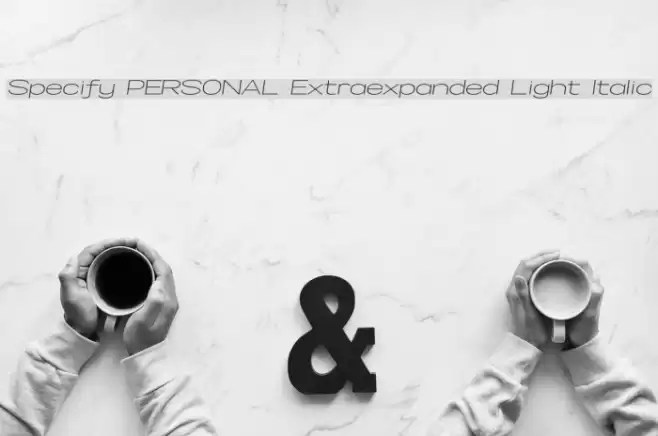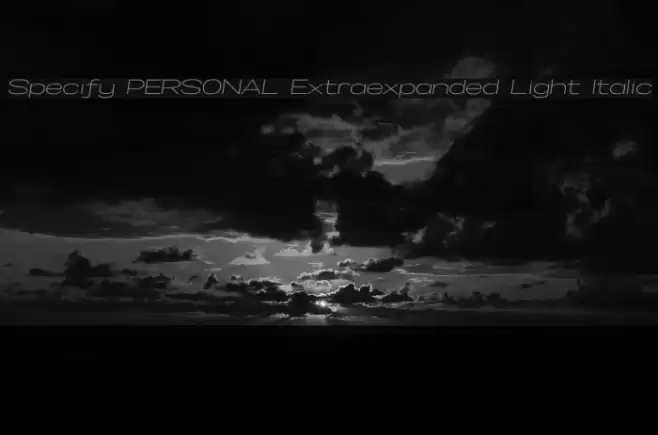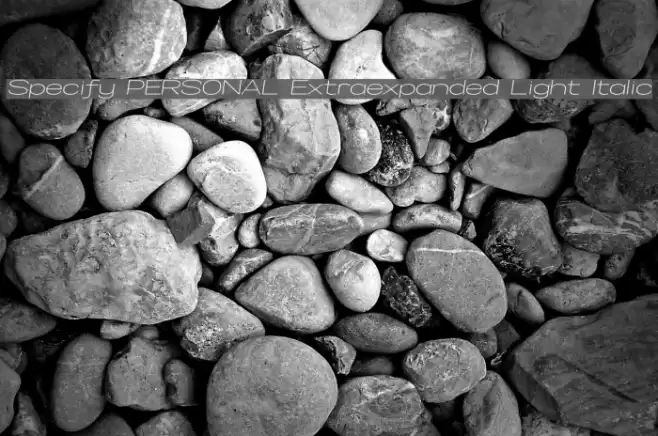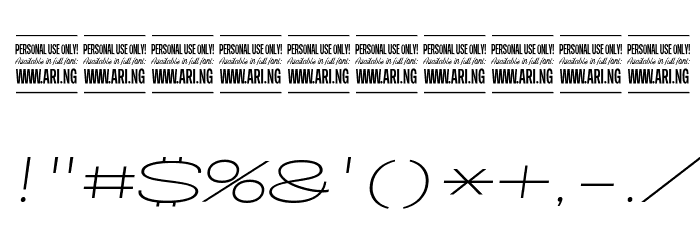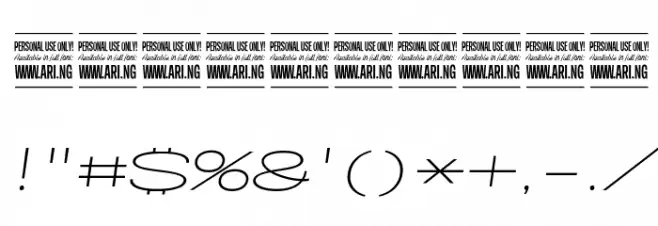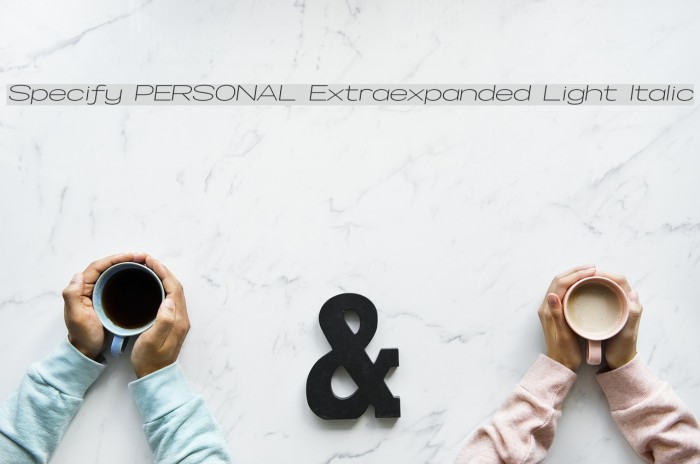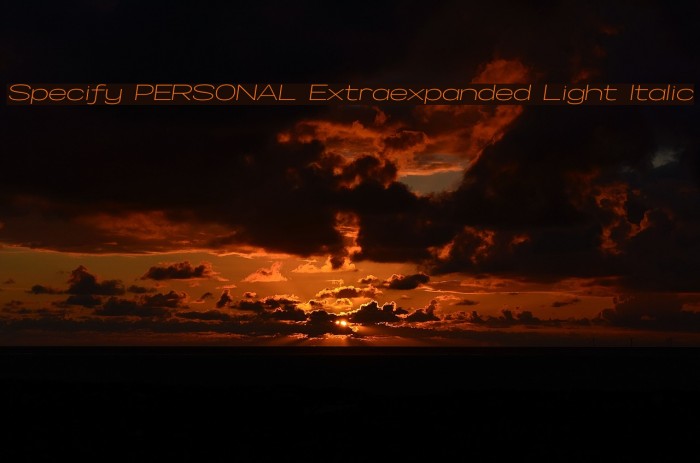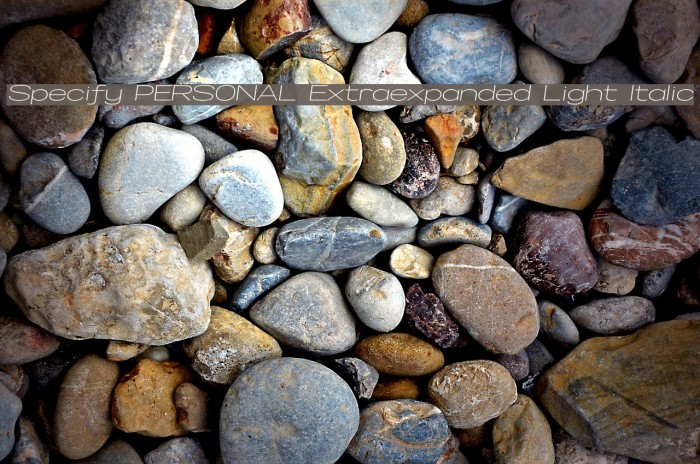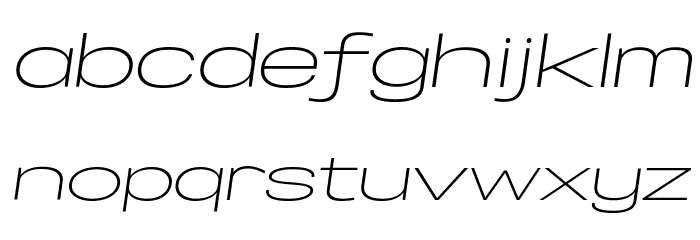
Specify PERSONAL Extraexpanded Light Italic Font
Specify PERSONAL Extraexpanded Light Italic Description
This font features an elegant and modern design with a light, airy feel. The characters are extra expanded, giving them a wide appearance that enhances readability while maintaining a sleek and sophisticated look. The italic style adds a touch of dynamism and fluidity, making it suitable for creative and contemporary projects. The strokes are consistent and smooth, with a low contrast between thick and thin lines, contributing to its minimalist aesthetic. The overall design is clean and uncluttered, making it versatile for various applications.
A modern, extra expanded, light italic font with a sleek and elegant style from Uncategorized fonts.
- Proposed Projects: Ideal for branding, advertising, fashion magazines, and modern web design.
- Weight: Light
- Width: Expanded
- Character Spacing: Wide
- Use Case: Headlines, Logos, Branding